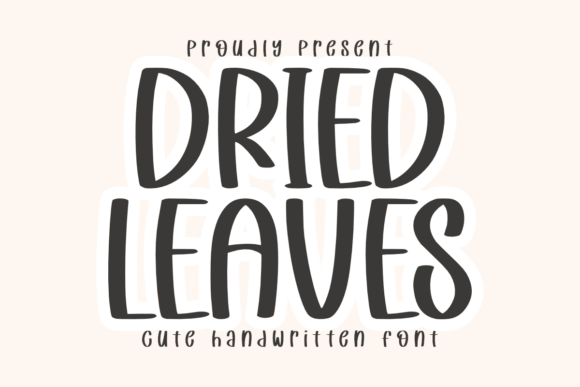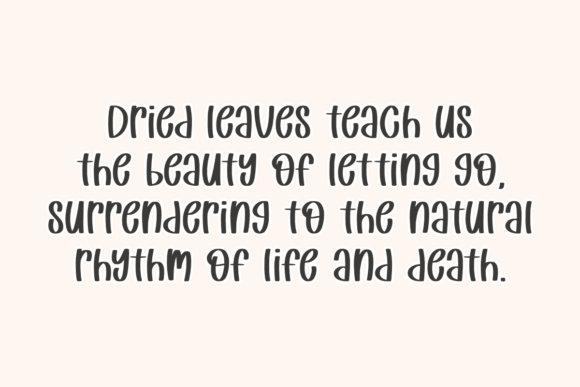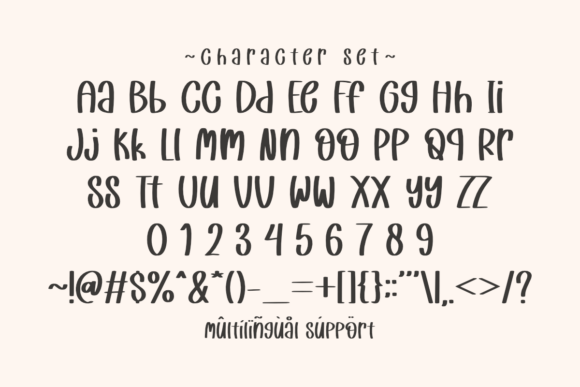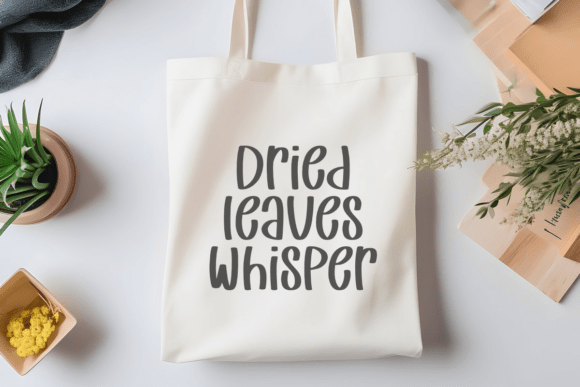
Dried Leaves Font: Cute Handwritten Typography for Cricut & Crafts
About the Dried Leaves Font
The Dried Leaves Font offers a perfect balance of form and function for your design needs. Dried Leaves is a charming handwritten font with tall, slightly whimsical characters and a soft outlined effect. Its cozy, autumn-inspired vibe makes it perfect for seasonal branding, nature-themed crafts, and friendly packaging. This font balances elegance and playfulness in one delightful design.
Dried Leaves excels in projects requiring a touch of autumnal charm and handcrafted warmth. It’s ideal for headlines, short text blocks on packaging, invitations, and social media graphics. Its whimsical nature also lends itself well to children’s book illustrations or projects related to fall festivals and events. However, avoid using it for body text or large amounts of continuous copy; its handcrafted nature can hinder readability in extended passages. Also, it’s less suitable for applications needing a highly professional or modern feel.
Pairing Dried Leaves with a clean sans-serif like Lato or Open Sans provides a contemporary counterpoint to its organic feel, enhancing readability and creating a balanced design. For a more traditional approach, consider pairing it with a serif font like Playfair Display, which complements the elegant aspects of Dried Leaves. A script font like Great Vibes could also work well for supporting text, creating a cohesive yet varied visual hierarchy.
The overall personality of Dried Leaves is friendly, approachable, and slightly nostalgic. It evokes feelings of comfort and warmth, making it particularly well-suited for brands associated with nature, handmade goods, or fall-themed products and services.
Dried Leaves Font Usage Examples
Dried Leaves Font Example